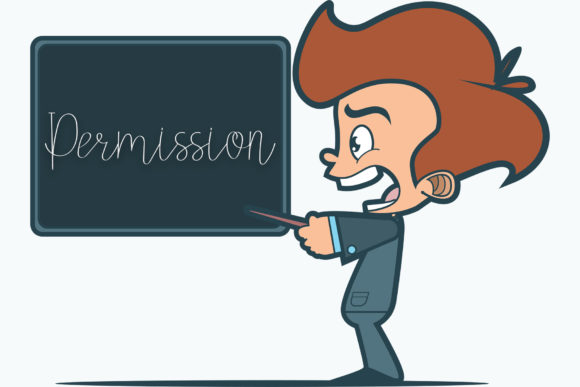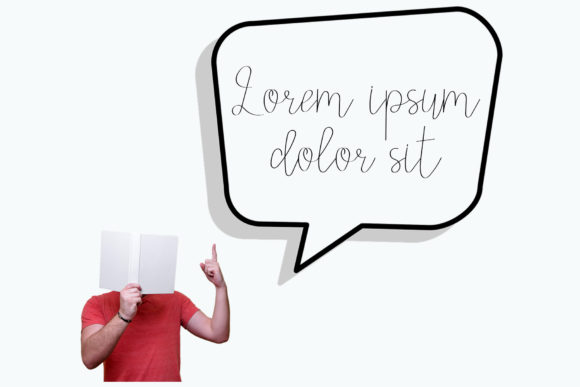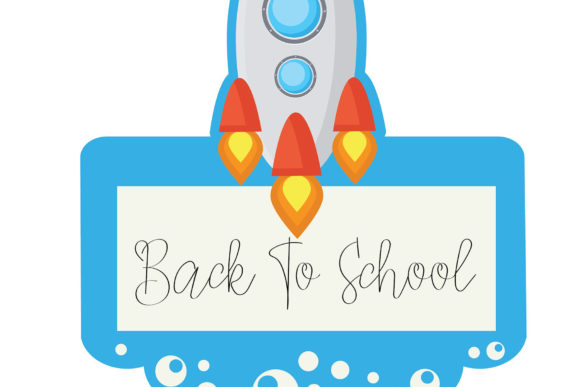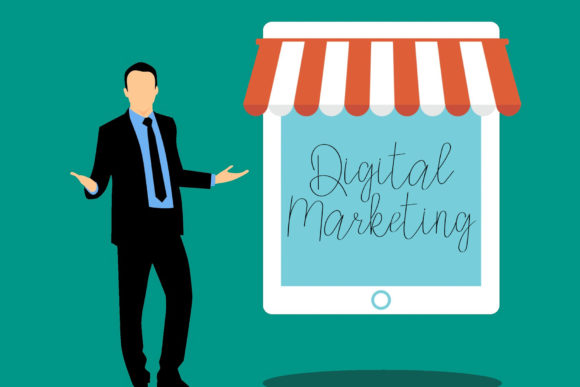
About Sunday Font
Sunday is a thin, delicate and cursive handwritten font. It looks beautiful on a variety of designs requiring a personalized style, such as wedding invitations, thank you cards, weddings, greeting cards, logos and so on.